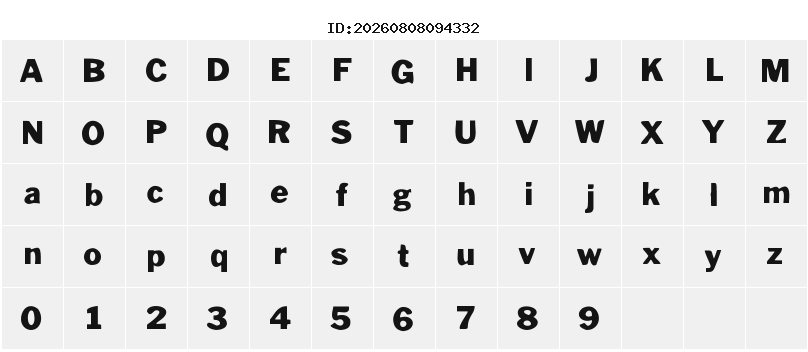
Poterski HND CE.ttf is a modern, elegant sans-serif font designed for ultimate readability and visual harmony. Perfect for branding, headlines, web design, and print materials.